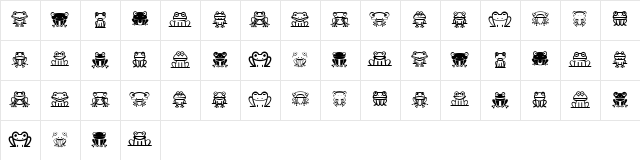
Froggy Regular
Design Context for Froggy Typeface
Froggy is a composed and adaptable typeface that performs quietly and consistently across a wide range of design contexts.